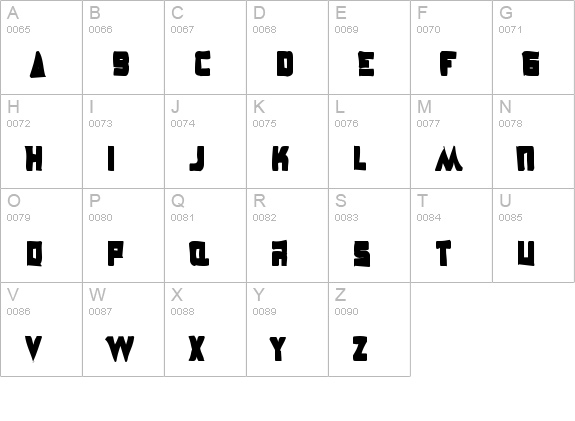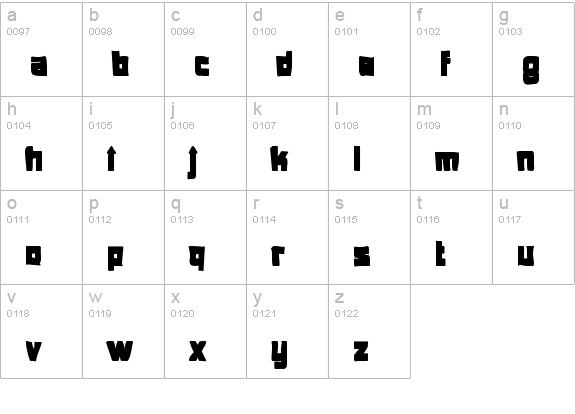
Anglepoise Lampshade Ink Font Details
The Anglepoise Lampshade Ink font is a unique and artistic typeface that captures the essence of vintage charm and handcrafted elegance. Its intricate design features subtle imperfections and irregularities, giving it a hand-drawn appearance that adds character and personality to any project. This versatile font is perfect for adding a touch of whimsy and nostalgia to your designs, whether you're working on branding, packaging, invitations, or any other creative project. Its stylish and quirky aesthetic makes it a standout choice for those looking to make a statement with their typography. Best of all, the Anglepoise Lampshade Ink font is available for free download at FontsMarket.com. So go ahead and add this delightful font to your collection today and let your creativity shine with its charming and playful vibe.